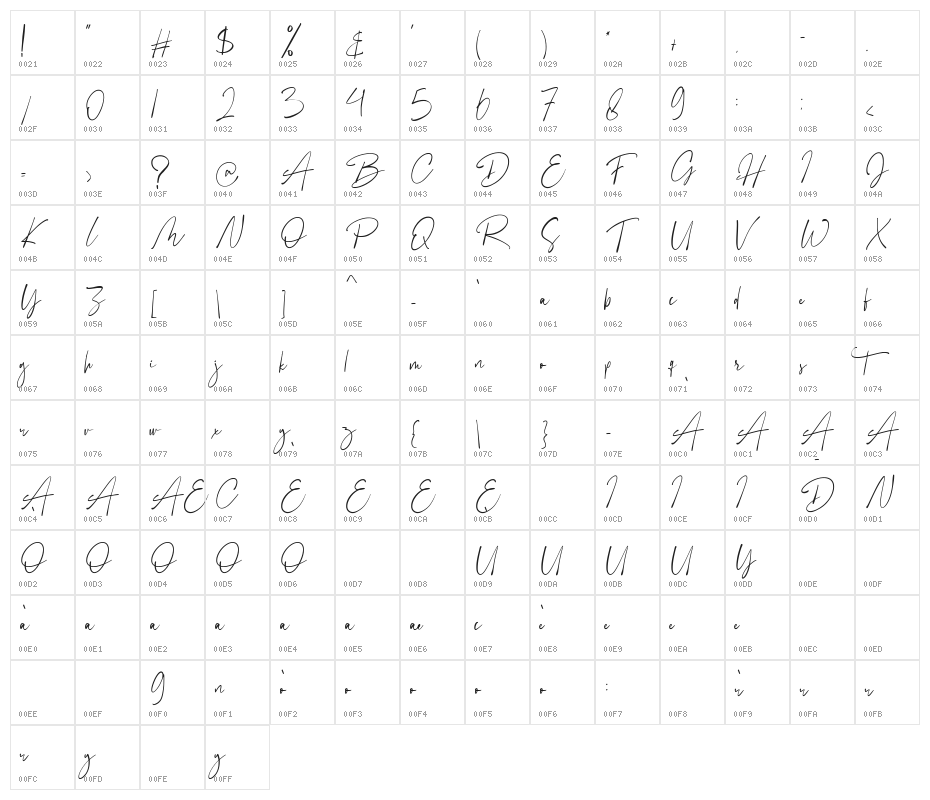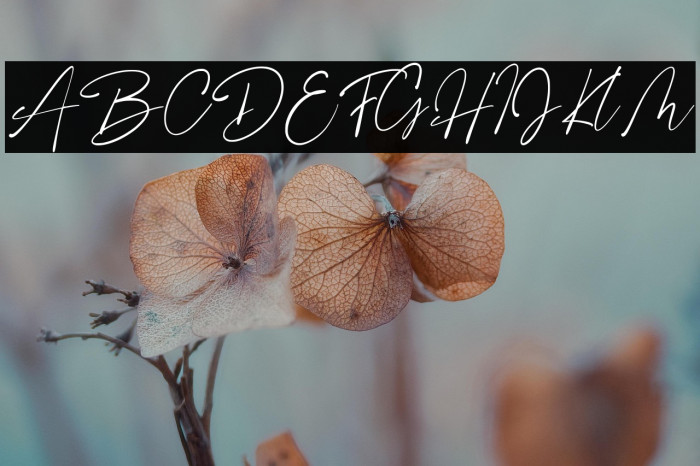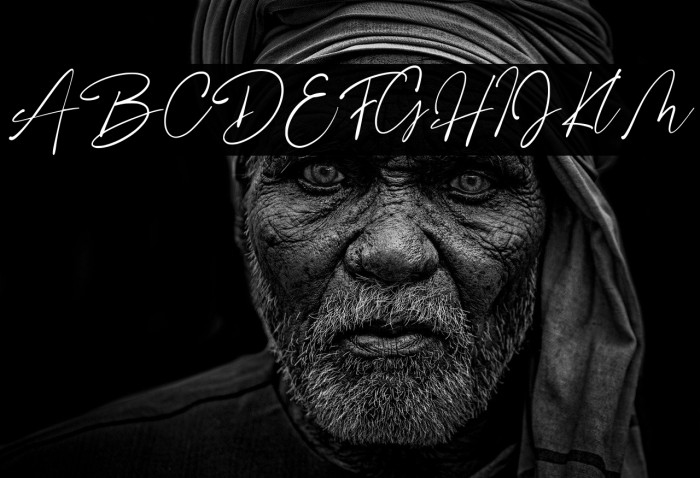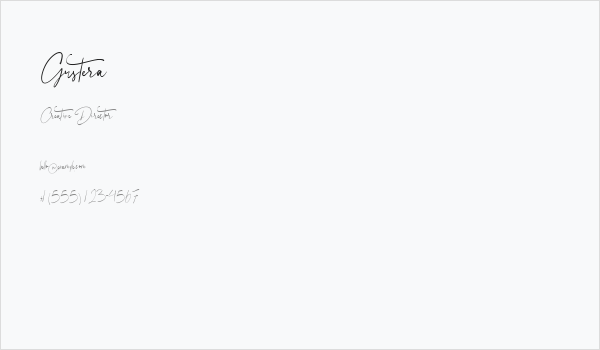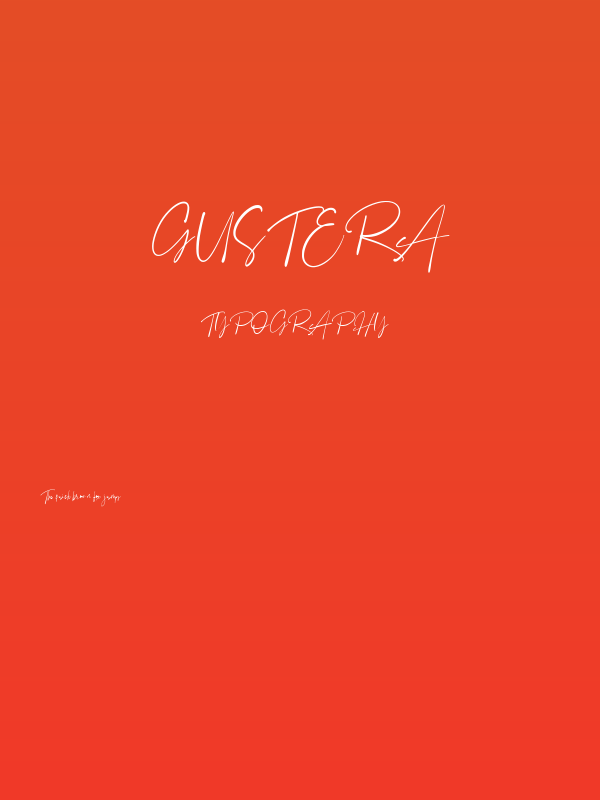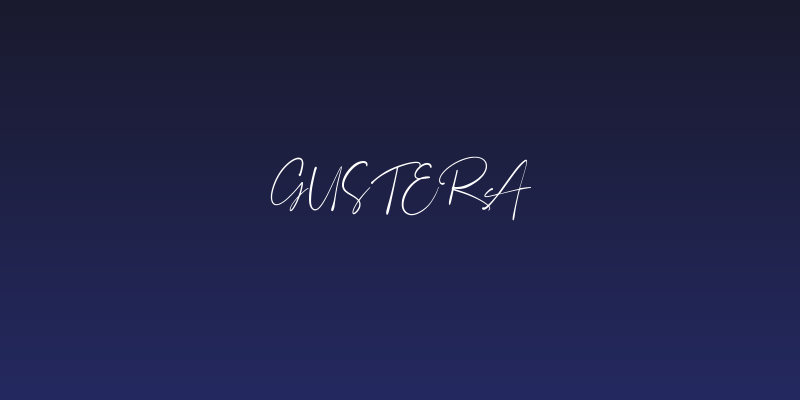
Gustera Font
Gustera Description
This font features an elegant and flowing script style, characterized by its fluid and cursive letterforms. The uppercase letters are tall and slightly slanted, with graceful loops and swashes that add a touch of sophistication. The lowercase letters maintain a consistent style, with smooth connections between characters, creating a harmonious and seamless appearance. The numerals are designed with a similar flair, featuring curved lines and a sense of movement. Special characters are integrated seamlessly, enhancing the font's versatility. Overall, this font exudes a sense of elegance and charm, making it suitable for a variety of creative applications.
| Overall Style | Elegant |
| Use Case | Logos, Invitations, Decorative text |
| Proposed Projects | Ideal for wedding invitations, greeting cards, branding, and elegant logo designs. |